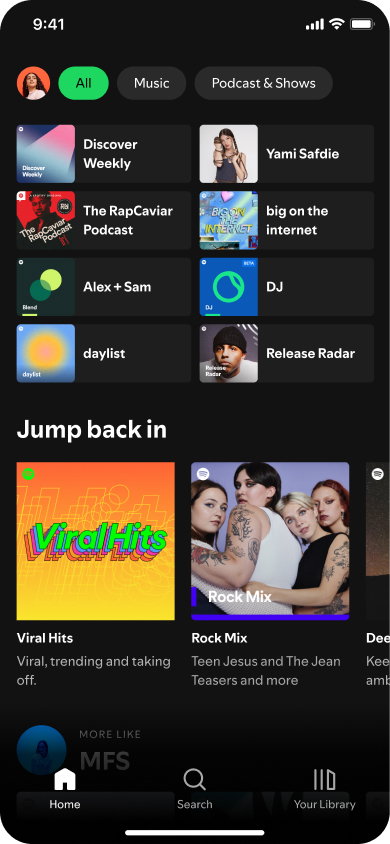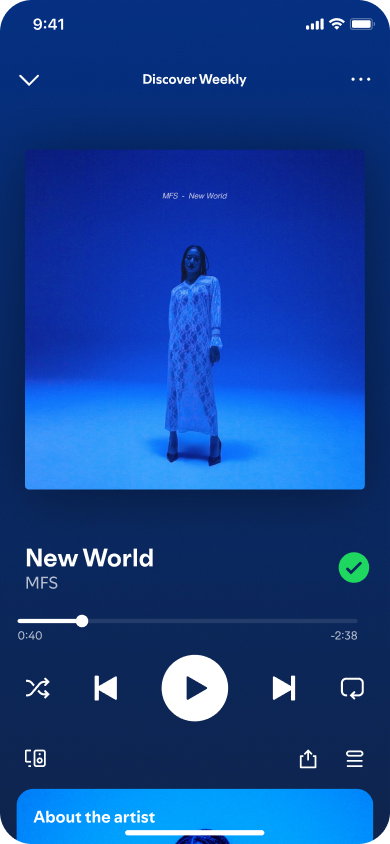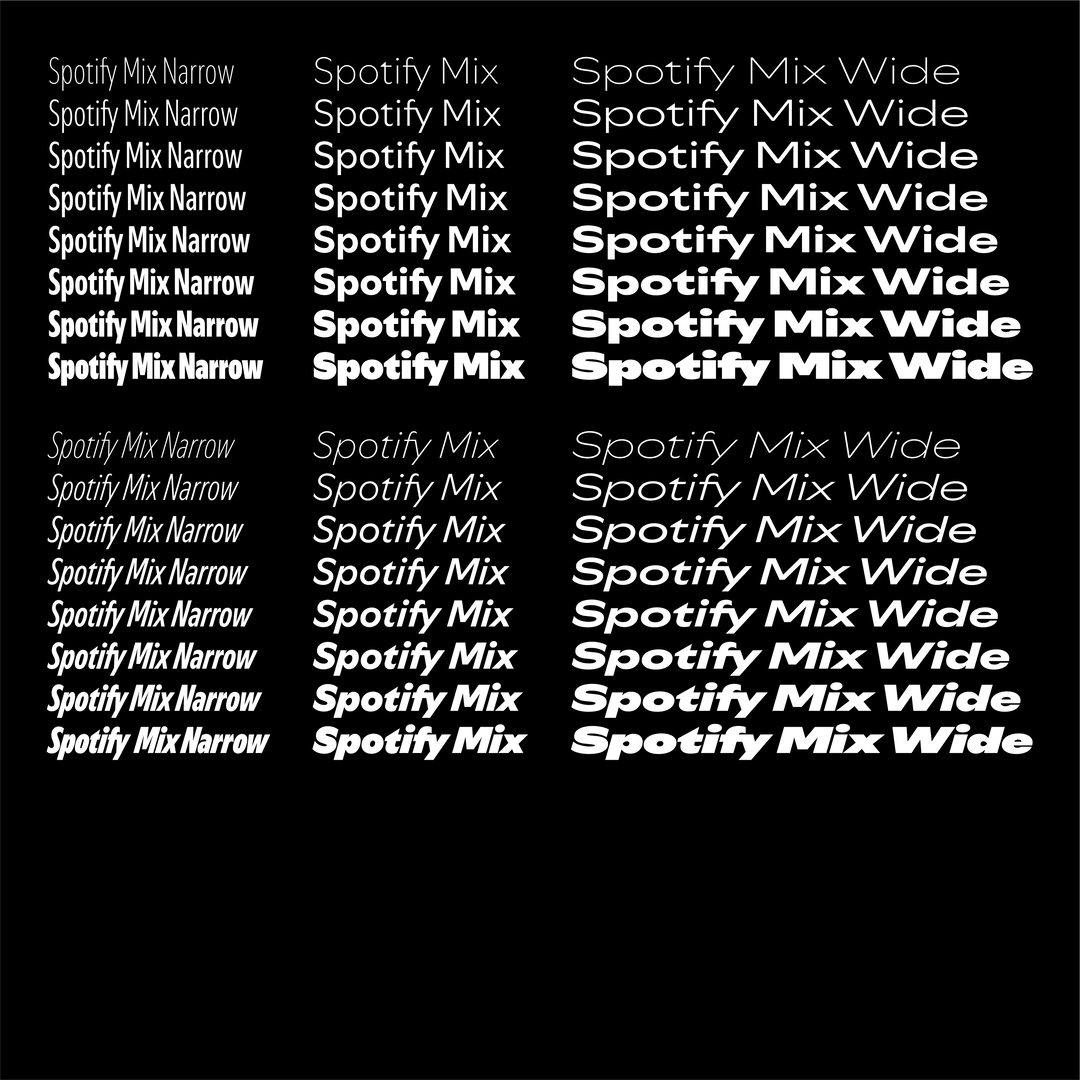
Spotify launches new bespoke typeface with Dinamo: Spotify Mix
A year and a half in the making, the new typeface will be used across both the app and broader marketing and brand communications – not to mention the Spotify wordmark too.
Spotify has launched a new bespoke brand typeface called Spotify Mix, which the music platform worked with the Berlin type design studio Dinamo to create. The typeface took around 18 months to develop and will, from this week, begin to be seen across all of the brand’s communications and marketing, and within the product itself. It’s even going to replace the font used in the Spotify wordmark.
The typeface will replace Spotify Circular, which the music service has used for years. “Circular had been with us for quite some time and it served us really well, but it also felt quite limiting at times,” says Rasmus Wängelin, global head of brand design at Spotify. Circular didn’t offer enough options or expressiveness. “Being able to go from condensed to extended gives you an ability to communicate so many more emotions,” he says, “versus a typeface that only has a regular setting at different weights.” And this ability to dial the expressiveness both up and down is vital for Spotify, because, as he explains, “we need to show up in different ways in a lot of different places”.
As Rasmus notes, the team at Spotify also wanted to introduce a lot more character and personality that Circular was sometimes felt to lack. “By its nature, Circular is perfect – it’s very geometric and feels very perfect,” he says. “People want to connect to humanity a bit more and are pivoting away from things that feel too perfect, because they tend to feel a bit sterile and kind of impersonal.” This became a really important part of the brief, along with wanting a typeface that “has certain characteristics that are unique to Spotify, that we can build equity in over time”.
The music service decided to create this typeface in collaboration with Dinamo, the Berlin-based type design studio founded by Johannes Breyer and Fabian Harb. The studio was chosen for its understanding of music, art and fashion, and its experience in bringing type to life in digital contexts. The process started with Dinamo flying to New York to meet the Spotify teams there. “We spent about a week just kind of information-dumping,” says Rasmus. They looked at a huge number of references from audio culture and music history, including posters and album covers, and landed on the idea of incorporating a range of different type genres into the eventual typeface. “We also spent a lot of time talking about dance and movement choreography, and audio waves,” says Ras. “All of this inspired us to create something that flows more than a standard typeface.”
The final typeface balances expressiveness and character with the necessary requirements surrounding legibility and accessibility. Like any good piece of type design, the closer you look, the more interesting details you notice. The most recognisable detail is arguably the “transmitter” shape within the negative spaces of the letters like “p”, “b” and “d”, which is designed to nod to audio amplification. But there are also more subtle flicks and diagonal cuts that lend the typeface a distinctive look, and add character and personality.
There are also a series of alternatives and variations, which will allow the design team to dial the expressiveness of any communications up or down. “When it comes to things like numbers, we have four different number sets, which you can switch between,” says Rasmus. “Some of the letters have a straight alt, in case we need to communicate something that needs to feel a little bit more strict for whatever reason.”
Spotify Mix is going to be with the company for years to come. The new typeface lends itself to animation and is more suited to a variety of different use cases. As Rasmus puts it, “If we have a tall skinny screen, we can use the condensed font; if we have a wider one, we can use the thicker, more extended font.” The new typeface will be rolled out across the brand’s communications and marketing, as well as in the app, and will even replace Circular in the brand’s wordmark. “So, when you see something in the world and when you open the app,” Rasmus says, “there is that connection and we can build an entire connected ecosystem.”